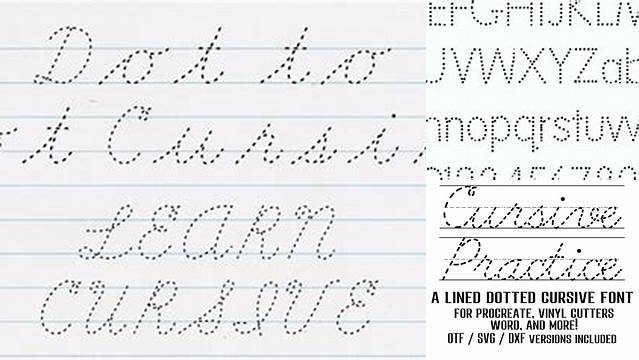
Free Cursive Dotted Fonts: Download Now!
Hey guys! Are you looking to add a touch of elegance and fun to your projects? Or maybe you're teaching handwriting and need some awesome resources? Well, you've come to the right place! We're diving deep into the world of free cursive dotted fonts, and trust me, there's a lot to explore. From calligraphy to educational worksheets, these fonts are super versatile and can make your work stand out. Let's get started!
1. What are Cursive Dotted Fonts?
So, what exactly are cursive dotted fonts? These fonts are designed to mimic handwriting, but with a twist! Each letter is made up of dots or dashed lines, making them perfect for tracing and learning cursive. They're a fantastic tool for kids learning to write, graphic designers looking for a unique touch, or anyone who loves the beauty of cursive script. When you're working on projects that need a personal, handwritten feel, using cursive dotted fonts can be a game-changer. They combine the elegance of cursive with a playful, accessible design, making them ideal for a variety of applications. Whether you're creating invitations, educational materials, or branding assets, these fonts add a distinctive touch that sets your work apart.
2. Why Use Cursive Dotted Fonts?
Why should you even bother with cursive dotted fonts? Great question! There are tons of reasons. For starters, they’re incredible for handwriting practice. Imagine having a font that guides you (or your kids) through each stroke of a letter. Super helpful, right? Plus, they add a unique flair to designs. Think invitations, posters, or even website headers. Using cursive dotted fonts can make your project look both sophisticated and approachable. These fonts bridge the gap between traditional calligraphy and modern design, giving you the best of both worlds. Their dotted structure isn't just visually interesting; it also serves a practical purpose by offering a clear path for tracing and learning. This makes cursive dotted fonts an excellent choice for educational materials, especially for children who are developing their fine motor skills and learning to write in cursive. The interactive nature of these fonts encourages engagement and makes the learning process more enjoyable.
3. Benefits for Handwriting Practice
The main reason many people search for these fonts is for handwriting practice. And for good reason! Cursive dotted fonts provide a visual guide, showing the correct way to form each letter. This is especially useful for kids who are just starting to learn cursive. The dotted lines act as training wheels, helping them develop muscle memory and improve their penmanship. As they trace over the dots, they learn the flow and rhythm of cursive writing, building a foundation for more fluent and confident handwriting. Moreover, using cursive dotted fonts can make handwriting practice more engaging and less daunting. The dotted letters offer a clear starting and ending point, making it easier for learners to understand the structure of each character. This clarity reduces frustration and encourages persistence, as students can see their progress more tangibly. The visual feedback provided by the dots helps in correcting mistakes and reinforcing proper letter formation techniques. Overall, these fonts are a powerful tool for anyone looking to improve their cursive handwriting skills.
4. Adding a Unique Touch to Designs
Beyond handwriting practice, cursive dotted fonts can seriously level up your design game. Imagine using a dotted script for wedding invitations or birthday cards. It’s unexpected, elegant, and adds a personal touch that other fonts just can’t match. Designers love them because they offer a blend of classic and contemporary styles. They can be incorporated into logos, branding materials, and even website design to create a memorable and distinctive look. The unique texture and visual interest of cursive dotted fonts make them stand out from traditional typefaces, allowing your designs to capture attention and communicate a sense of sophistication and care. Moreover, the versatility of these fonts means they can be adapted to various design contexts. Whether you're working on a formal invitation or a casual greeting card, a cursive dotted font can be customized to fit the occasion. You can adjust the thickness of the dots, the spacing between letters, and even the color to achieve the perfect aesthetic. This flexibility makes cursive dotted fonts an invaluable asset in any designer's toolkit.
5. Free vs. Premium Cursive Dotted Fonts
6. Where to Find Free Cursive Dotted Fonts
7. Top Websites for Font Downloads
Let's break down some top websites for font downloads. DaFont is a classic, known for its massive library of free fonts. FontSpace is another great option with a wide variety and easy-to-navigate categories. Creative Fabrica often has both free and premium options, and they sometimes offer freebies, so keep an eye out! Each of these sites offers a unique experience and selection, so it's worth exploring them all to find the perfect font for your needs. DaFont, for example, has a simple, straightforward interface that makes it easy to browse and download free cursive dotted fonts. FontSpace, on the other hand, offers a more curated selection and a community-focused approach, allowing designers to share their work and provide feedback. Creative Fabrica stands out for its combination of free and premium resources, as well as its focus on crafting and design assets beyond fonts. By familiarizing yourself with these top websites, you can build a valuable toolkit of cursive dotted fonts for your projects.
8. Understanding Font Licenses
Speaking of rules, let's chat about font licenses. This might sound dry, but it’s super important. A font license tells you how you can legally use a font. Some are free for personal use, but if you’re using a font for commercial work (like a logo or a product you sell), you might need a commercial license. Always double-check the terms to avoid any copyright issues down the road. Understanding font licenses is crucial for respecting the rights of font designers and avoiding potential legal problems. Licenses typically outline what you can and cannot do with a font, including whether you can use it for commercial projects, embed it in documents, or modify it. Some licenses may require attribution, meaning you need to give credit to the font designer when using the font. Others may restrict the number of users who can access the font within an organization. By carefully reviewing the license agreement before downloading and using a cursive dotted font, you can ensure that you're in compliance and using the font ethically.
So, there you have it! Everything you need to know about free cursive dotted fonts. From handwriting practice to design projects, these fonts are incredibly versatile and can add a special touch to your work. Happy font hunting!